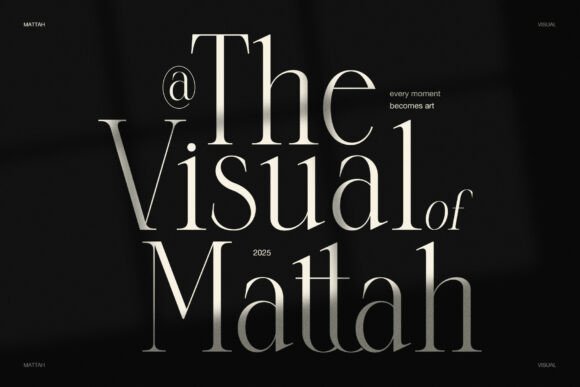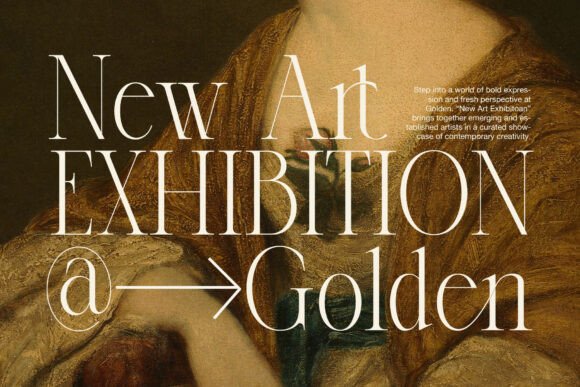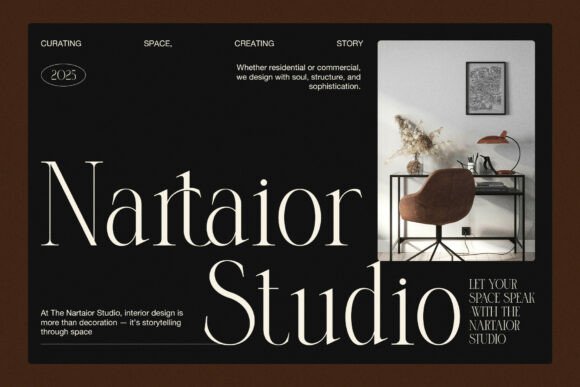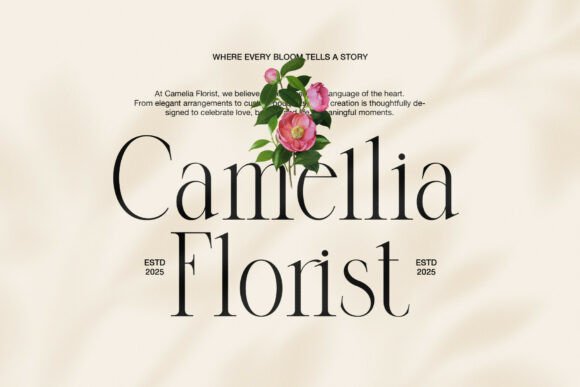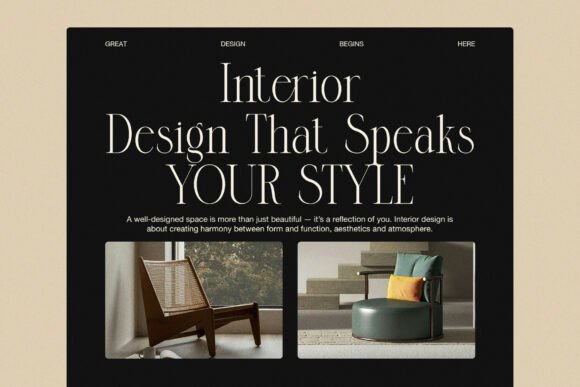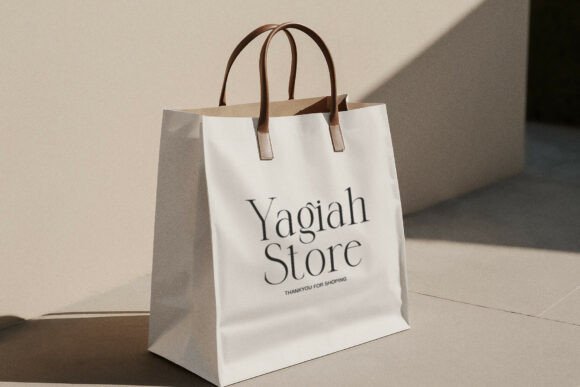
Introducing Dringko Font: Elevate Your Design with Elegance and Sophistication
In the world of typography, a well-crafted font can make all the difference in conveying the intended message and aesthetic of a design project. For designers and crafters seeking to add a touch of elegance and refinement to their work, Dringko Font is an exceptional choice. This stunning serif display font is specifically designed to express beauty, emotion, and a refined character, making it perfect for projects that demand a high level of sophistication.
The Inspiration Behind Dringko Font
Dringko Font draws inspiration from the world of editorial design and modern luxury aesthetics. The creators of Dringko sought to combine the timelessness of traditional serif fonts with the freshness and expressiveness required by contemporary design projects. The result is a font that exudes confidence and poise, while still feeling approachable and engaging.
Key Features of Dringko Font
Dringko Font boasts a range of features that make it an exceptional choice for designers and crafters. Some of its key characteristics include:
- Smooth Contrast: Dringko’s smooth contrast between thick and thin strokes creates a sense of visual flow, making it perfect for headlines and branding applications.
- Delicate Terminals: The font’s delicate terminals add a touch of elegance and refinement to the letterforms, enhancing their overall aesthetic appeal.
- Artistic Details: Dringko’s artistic details, such as its stylish alternates and carefully crafted ligatures, allow designers to create typography that feels distinctive and personal.
The Benefits of Using Dringko Font
Dringko Font offers a range of benefits for designers and crafters, including:
- Timeless Appeal: Dringko’s classic serif design ensures that it will remain a stylish and relevant choice for years to come.
- Versatility: The font’s elegant and refined character makes it suitable for a wide range of design projects, from luxury branding to editorial design.
- Expressiveness: Dringko’s smooth contrast, delicate terminals, and artistic details allow designers to create typography that is both beautiful and expressive.
Using Dringko Font in Your Design Projects
Dringko Font is an incredibly versatile font that can be used in a variety of design projects, including:
- Luxury Branding: Dringko’s elegant and refined character makes it perfect for luxury brands seeking to create a sophisticated and high-end visual identity.
- Editorial Design: The font’s classic serif design and smooth contrast make it an excellent choice for editorial design projects, such as magazines and newspapers.
- Packaging Design: Dringko’s artistic details and stylish alternates make it an excellent choice for packaging design projects, such as product labels and packaging materials.
In conclusion, Dringko Font is an exceptional choice for designers and crafters seeking to add a touch of elegance and sophistication to their design projects. With its timeless appeal, versatility, and expressiveness, Dringko is the perfect font for luxury branding, editorial design, packaging design, and more. Whether you’re looking to create a stunning headline or a beautiful brand identity, Dringko Font is sure to impress.